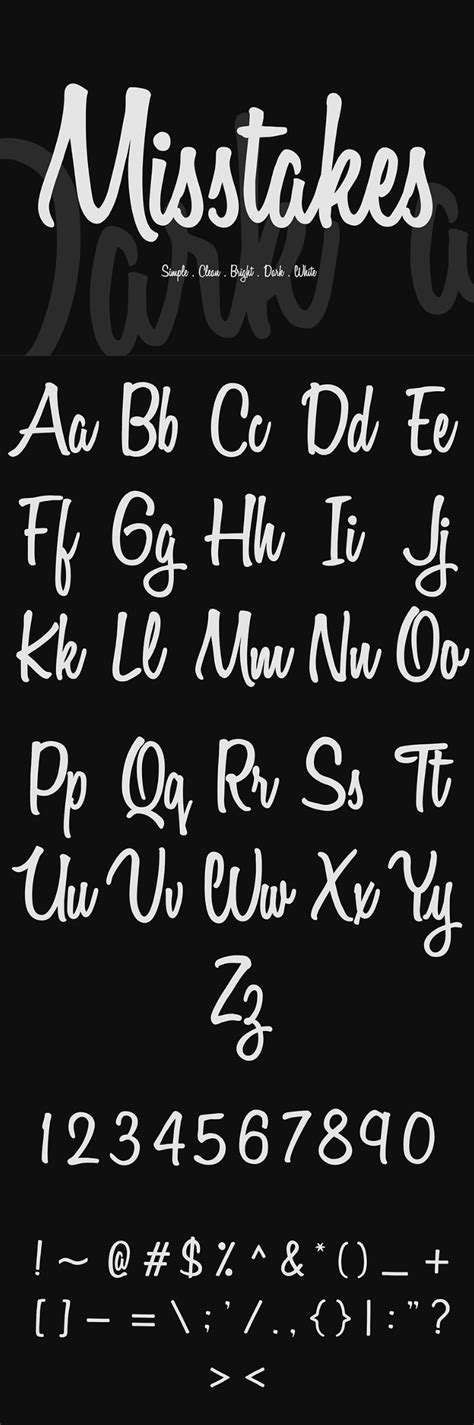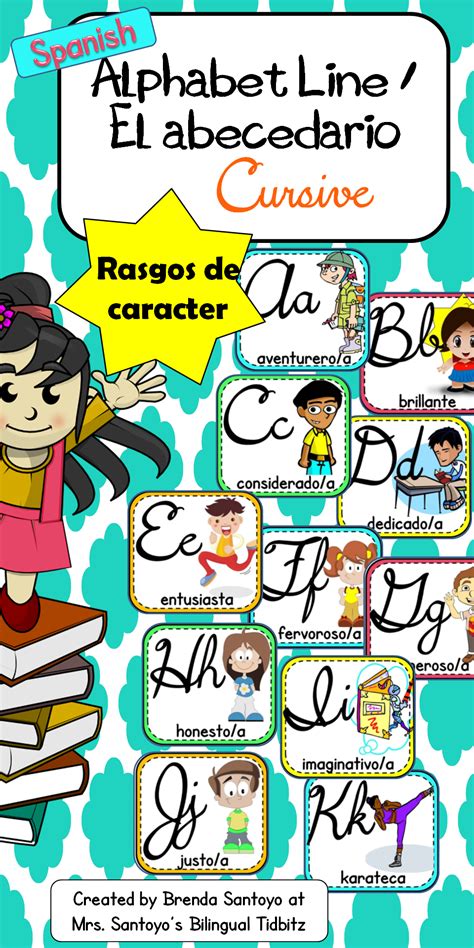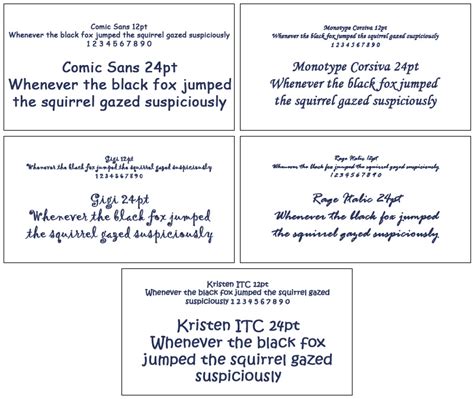
Characteristics Of Script Fonts / Raspberry Script Font | Script fonts, Script fonts ... - Find amazing script styles in this collection for 2020.. This way, brush script mt translates into a beautiful yet readable html font for your site. Script fonts are cool fonts which are based on real handwriting. Script fonts are based on real handwriting styles as they were written with a brush or a calligraphy pen. The font has stylistic alternates and. Save the date cards, invitations, menus, place cards, and even titles on.
The characteristic trait of the product is indicated on the nameplate: These types of script fonts tend to be less about form and more about movement. Typography is currently playing a central role in web design, with progressive improvements like variable fonts, css shapes, flexbox, css grids and subgrid definitively changing the way we work with typography in web design. Script fonts can make any project look and feel more elegant. They can be used in branding projects as well as in movie design, apparel design, social media 03.07.2013 · in addition to the character height, when using the mechanical sense of the term, there are several characteristics which may.
Now that you know their characteristics and usage, it's time to decide.
The font is increasingly rough and robust due to grunge spots and touch of textures. It can be used for logotypes, headlines and for short pieces of text, wherever you. The characteristic trait of the product is indicated on the nameplate: Шрифт mistletoe font duo cyrillic. Script font is a broad style that refers to any typeface that looks like it was drawn by hand. The characteristics of closed fonts also conforms to aperture. Therefore, these are handy resources in designing wedding invitations, flyers, postcards, etc. Registered features of standard scripts are defined and illustrated, encodings are listed, and templates are included for. Characteristic simplifies and drastically quickens the process of working with animated typefaces. For this reason they are used in politics by conservatives and protectionists, and in advertising they are irreplaceable for everything based on security and protection. They can be used in branding projects as well as in movie design, apparel design, social media 03.07.2013 · in addition to the character height, when using the mechanical sense of the term, there are several characteristics which may. List of sans serif typefaces. Script fonts can make any project look and feel more elegant.
So you can use these fonts for your logos, clothing, banners, posters, or even youtube thumbnails! Fantasy fonts are decorative/playful fonts. Script font is a broad style that refers to any typeface that looks like it was drawn by hand. Шрифт mistletoe font duo cyrillic. Script fonts are based on real handwriting styles as they were written with a brush or a calligraphy pen.
So are you feeling a bouncy baseline with flirty characters?
They create a sense of formality and elegance. These fonts are perfect to add charm to any of your solena is display script font based on a real handwriting. For this reason they are used in politics by conservatives and protectionists, and in advertising they are irreplaceable for everything based on security and protection. Serif fonts have a small stroke at the edges of each letter. The main advantage over other similar fonts is the lack of connections between characters, that allows wide variety of spacing between letters. The font is increasingly rough and robust due to grunge spots and touch of textures. This is a list of script typefaces. Script fonts are based on real handwriting styles as they were written with a brush or a calligraphy pen. All of these fonts are 100% free, both for personal and commercial uses. Font developers will learn how to encode script features in their fonts, choose character sets, organize font information, and use existing tools to produce standard script fonts. So are you feeling a bouncy baseline with flirty characters? All the different font names belong to one of the generic font families. Download and install free script fonts of the best quality from free fonts and use on your own personal and business related design purposes.
Find amazing script styles in this collection for 2020. If formal scripts are austere and disciplined. Script font is a broad style that refers to any typeface that looks like it was drawn by hand. Archive of freely downloadable fonts. They create a sense of formality and elegance.
Many characters have strokes that join them to other letters.